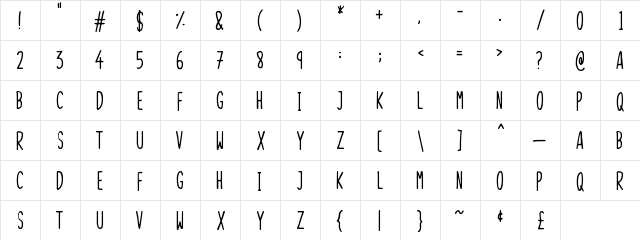
Skinny Things Regular
Design Context for Skinny Things Typeface
Skinny Things takes a measured approach to typography — its balanced proportions and neutral character make it a reliable workhorse for both digital and print work. The delicate stroke weight brings airiness and refinement to layouts.
Pro Tip: Pair Skinny Things with a font of contrasting weight or personality to build a more expressive typographic hierarchy.